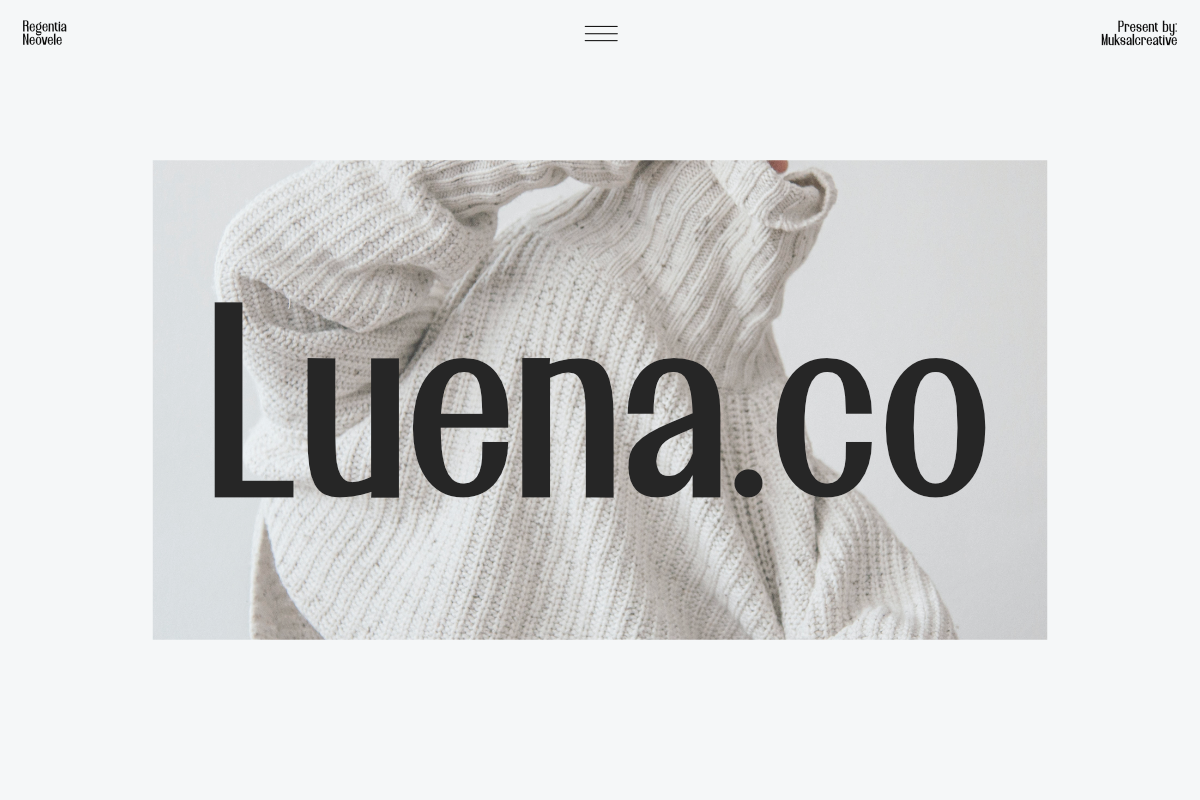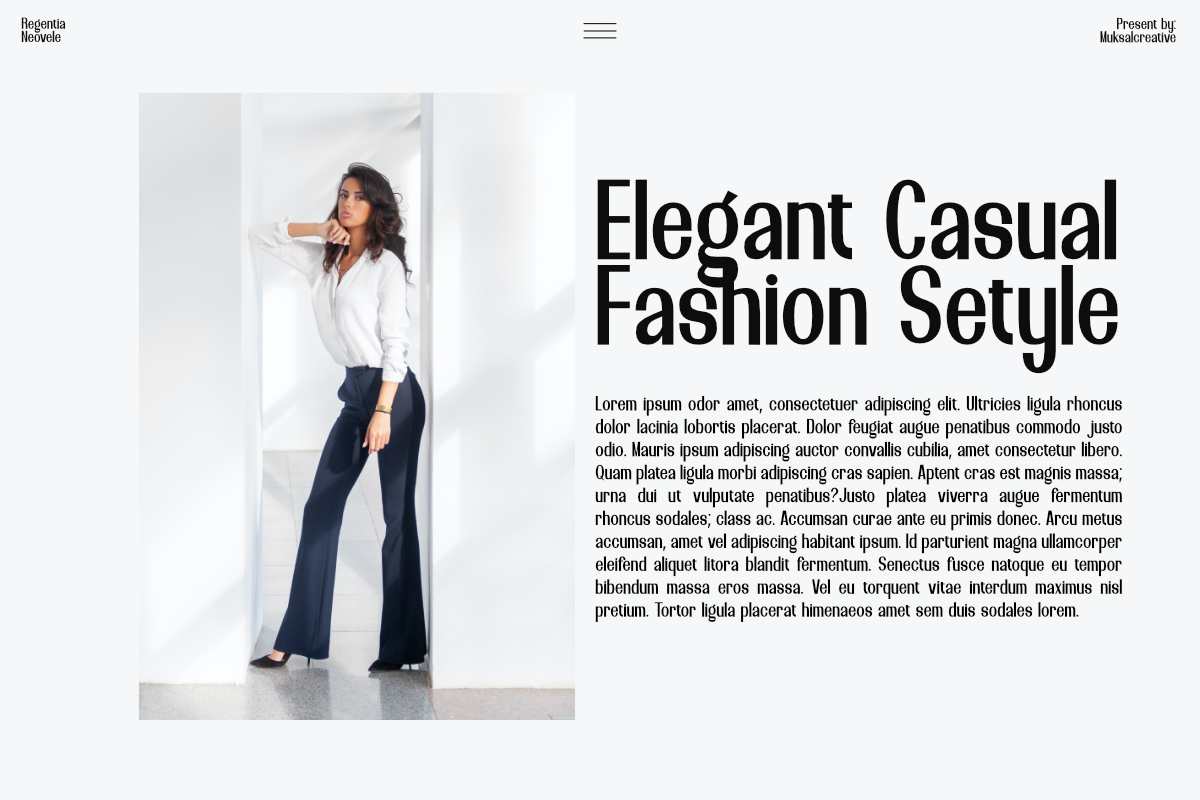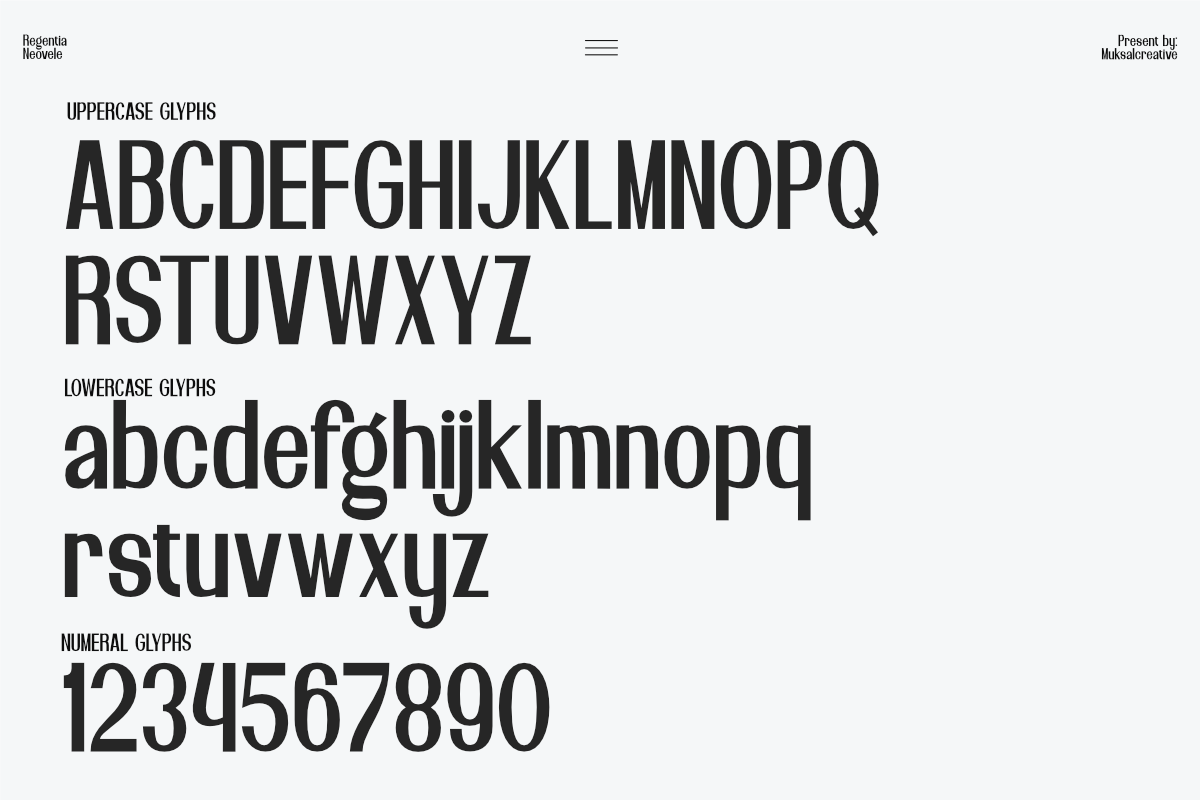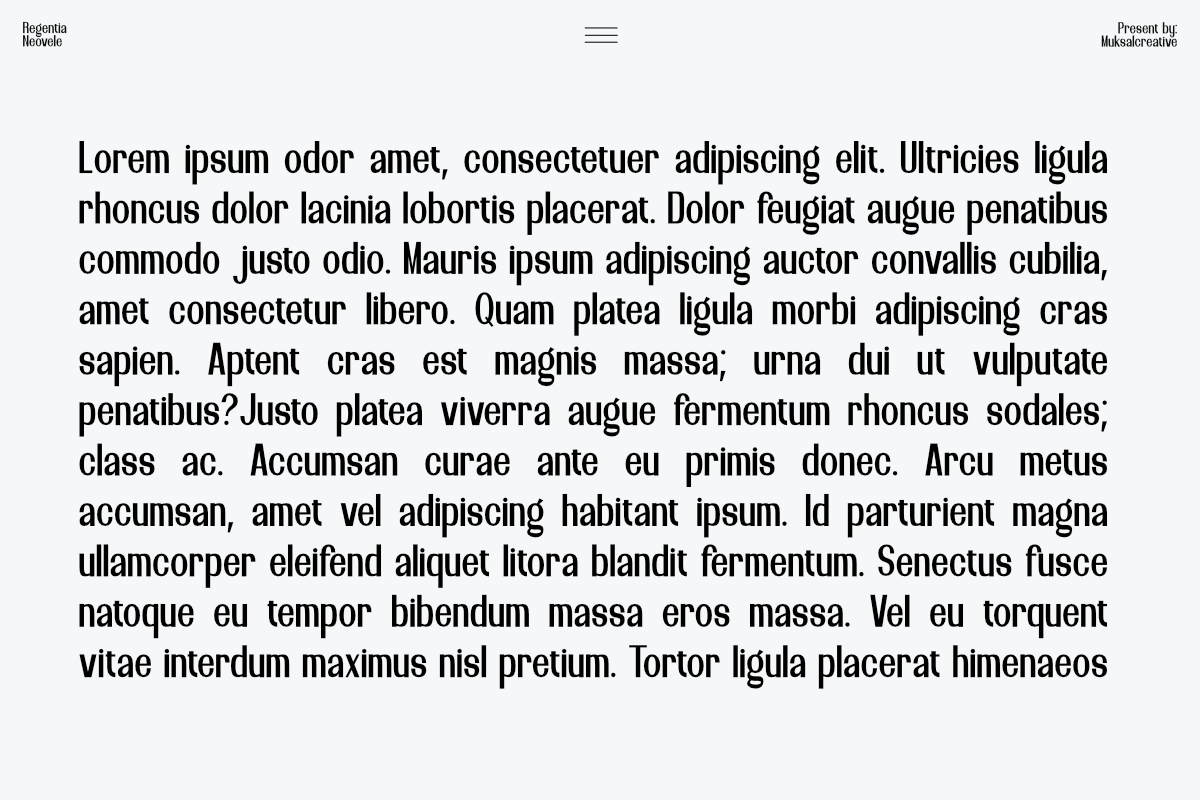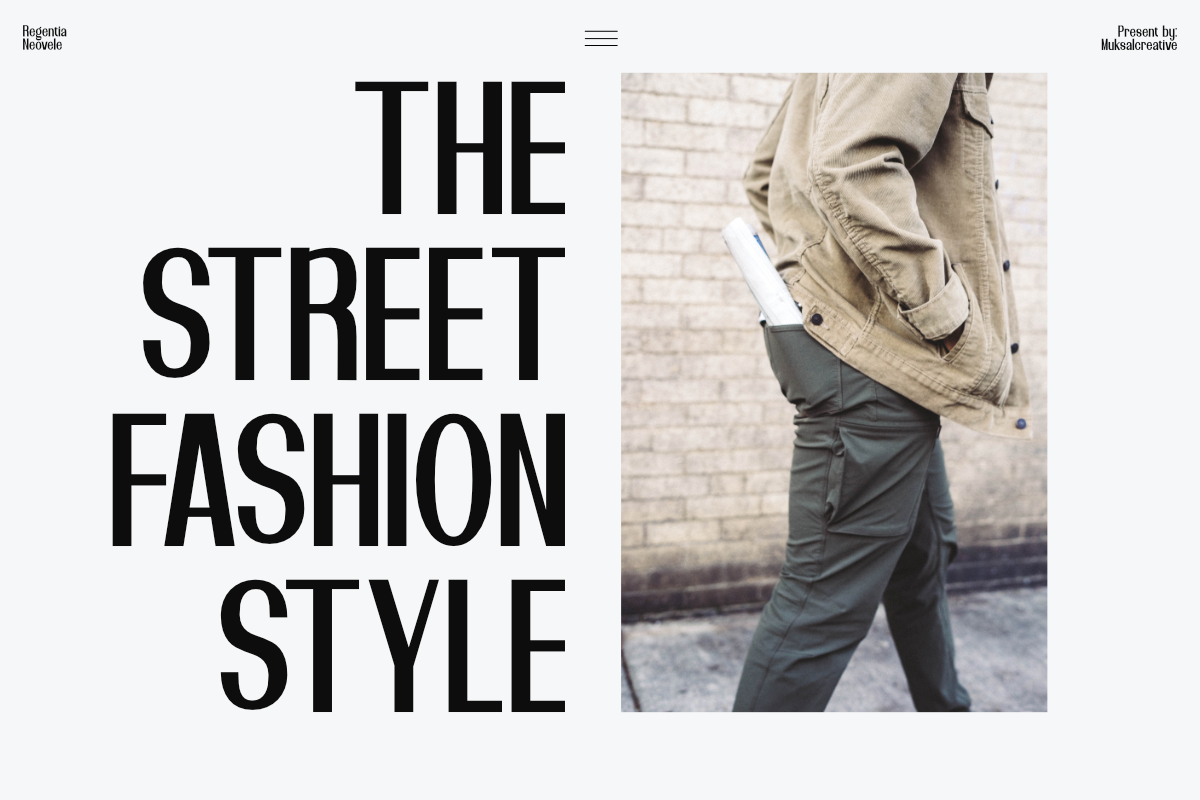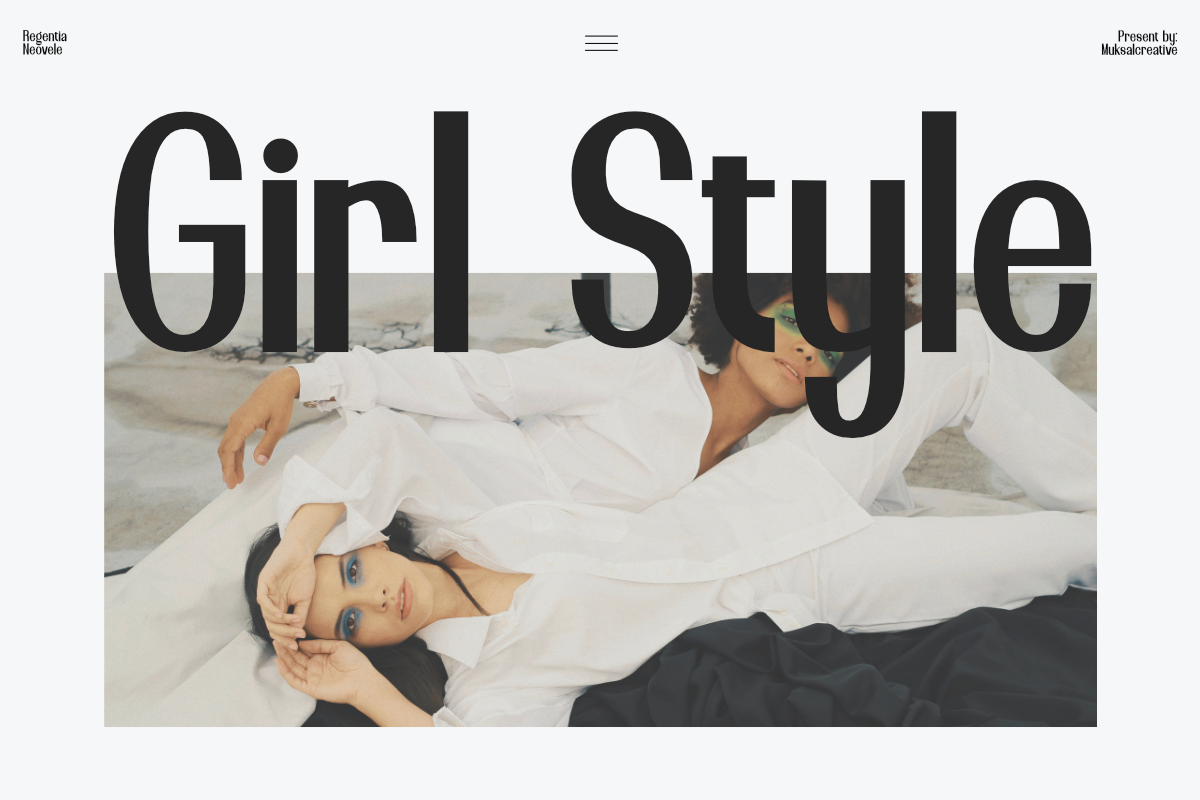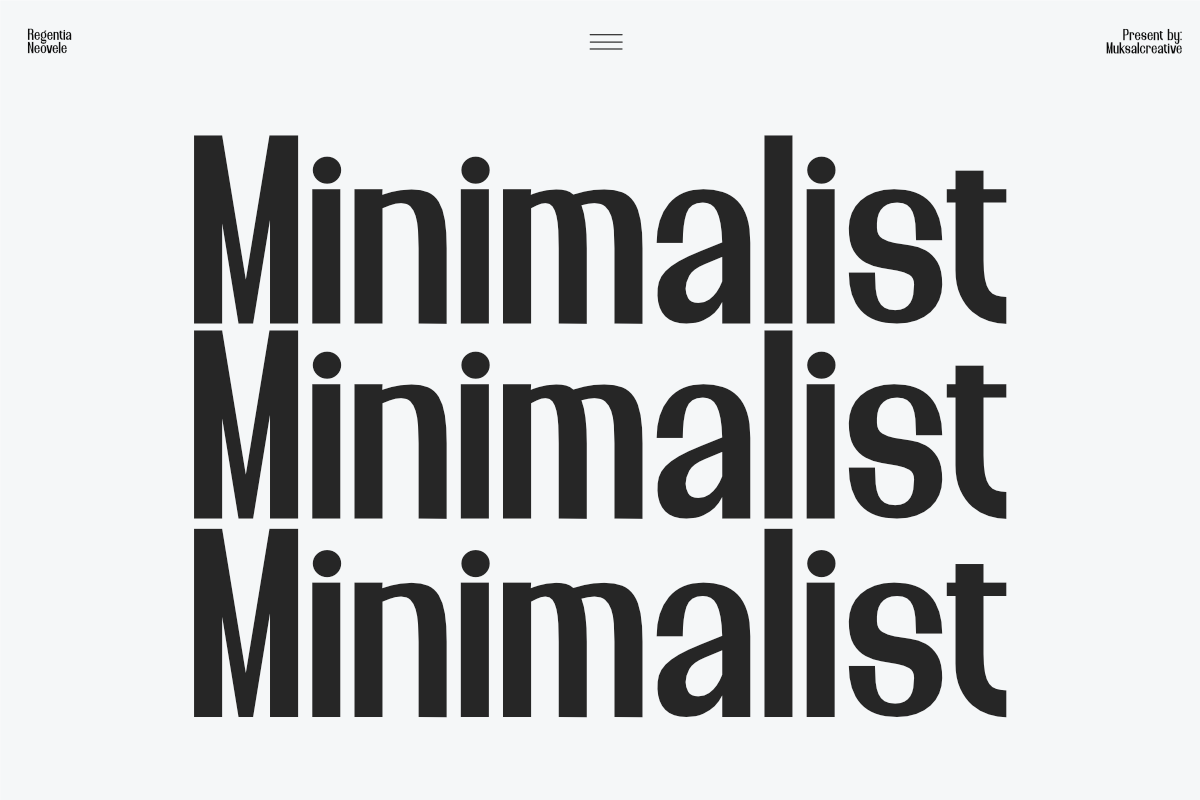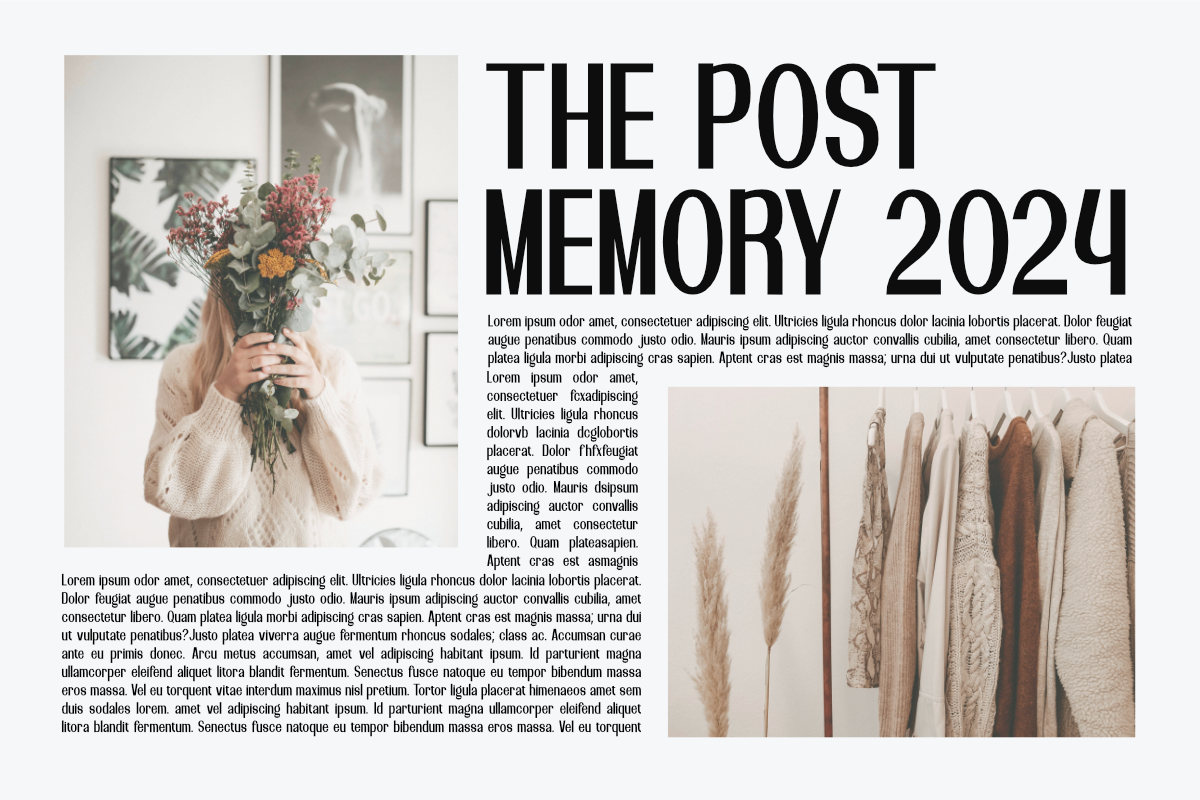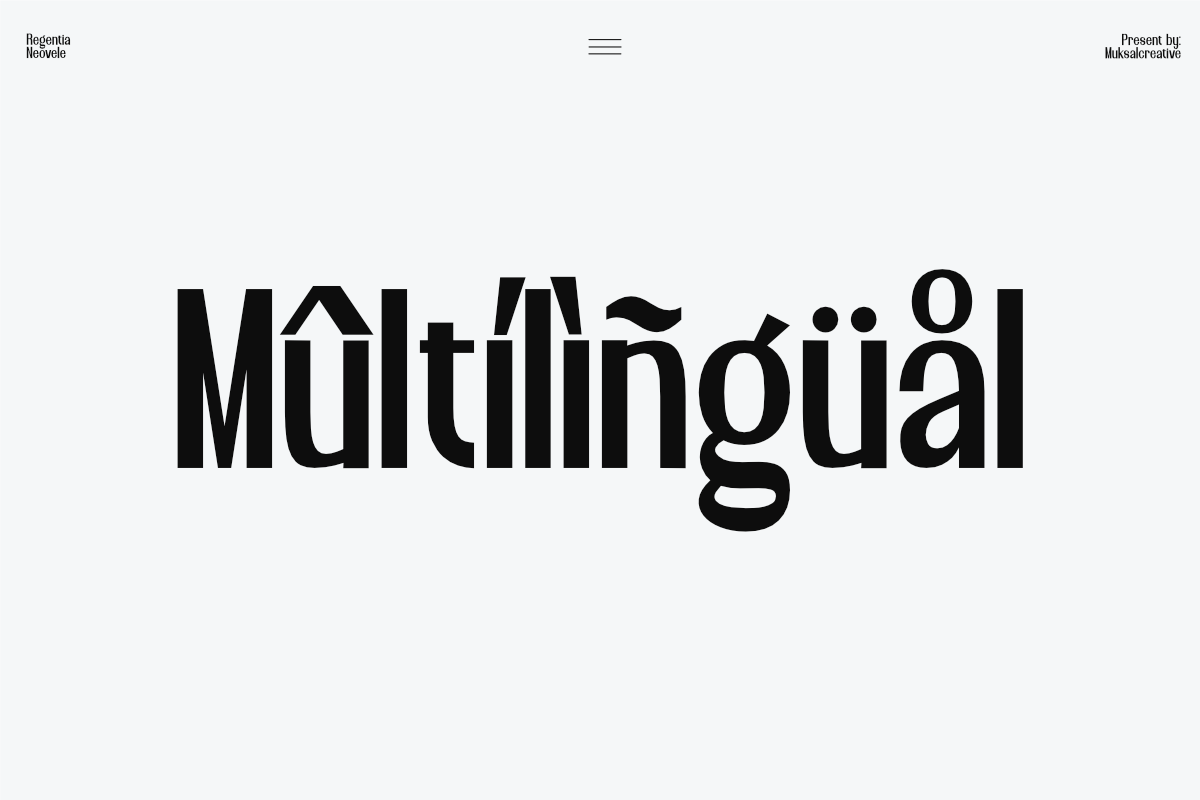
Regentia Neovele
Regentia Neovele is a font designed to blend classic elegance with a sophisticated modern touch. Featuring clean lines and refined details, this typeface exudes an elegant and formal character, making it perfect for premium branding, editorial design, and professional visual communication. Suitable for both prominent headlines and supporting text, Regentia Neovele delivers a timeless sense of luxury, making it an ideal choice for creative projects that demand a touch of excellence. Features: Lowercase and Uppercase Numerals & Punctuation Accented characters Format File: TTF,OTF,WOFF Multiple Languages Supported